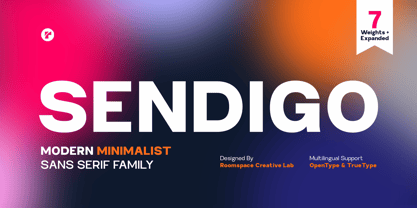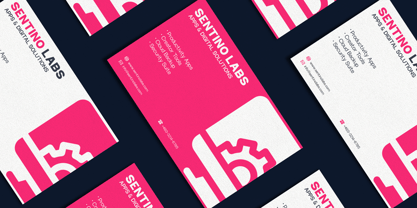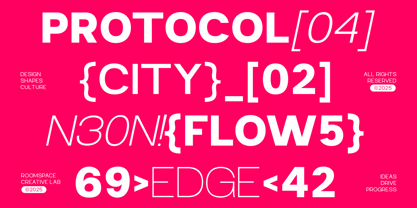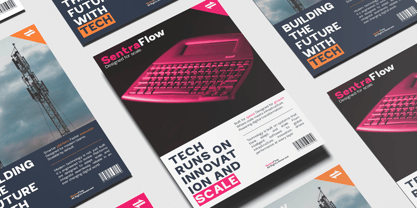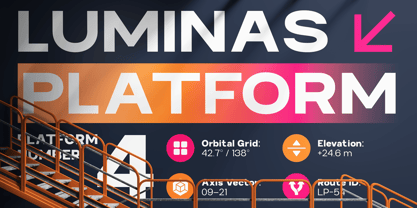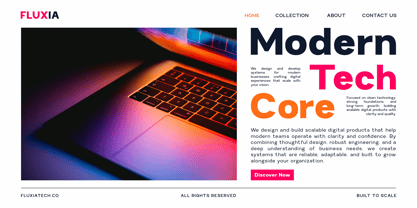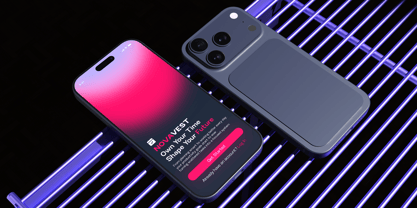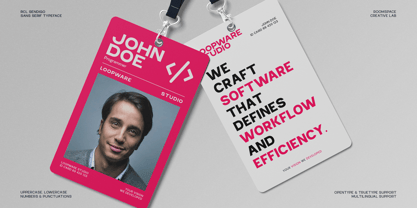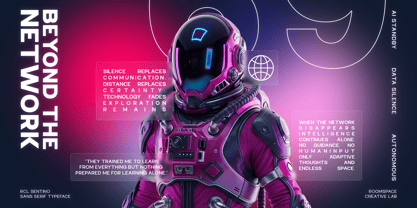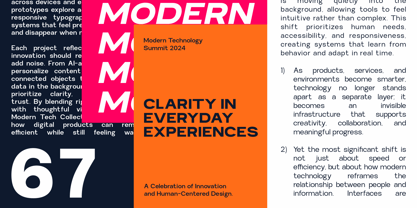
RCL Sendigo
Die Schriftfamilie RCL Sendigo wurde von Bakhrudin Ja'far entworfen und von Jafar07 veröffentlicht. RCL Sendigo enthält 14 Stile und Familienpaketoptionen. Mehr über diese Familie
RCL Sendigo is a modern minimalist sans-serif font family designed for clarity, balance, and contemporary aesthetics. Built with clean proportions and neutral shapes, Sentino delivers excellent readability while maintaining a refined visual presence. With 7 weights and expanded styles, Sentino is perfect for logos, branding systems, web interfaces, editorial layouts, and professional digital products. Features : - 7 Weights (Thin to Bold – Expanded) - Modern minimalist sans-serif design - Uppercase & lowercase - Multilingual support - Clean kerning and high readability Perfect For : Branding, UI/UX, web design, editorial layouts, corporate identity, presentations, digital products, and modern publishing.
Designer: Bakhrudin Ja'far
Foundry: Jafar07
A little from my personal design & background: My name is Bakhrudin Ja'far, I live in Malang, Indonesia. I am currently completing my degree in visual communication design and I have worked as a lettering artist and logo designer for many years. I finally started my studio called roocspace creative lab (jafar07) Studio a few months ago and with my team made my letters into typography.